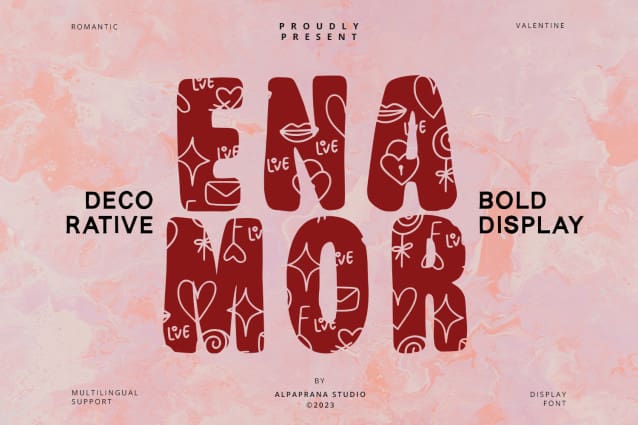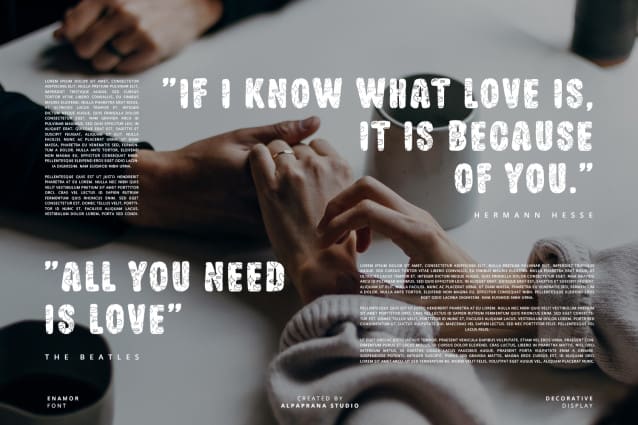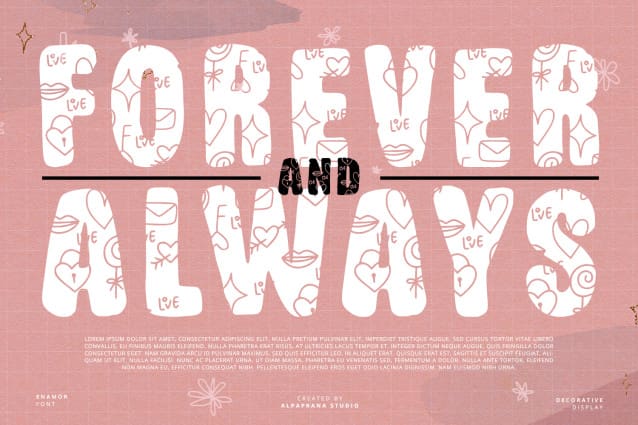
Enamor Display Font
Enamor Display Font is a display font with romantic and modern feels. It will be perfectly used for Branding, Logo Design, Lettering, Logotype, Clothing, Poster, magazine, packaging, posters, shopping bags, t-shirts, book covers, photography, special events and other design project.